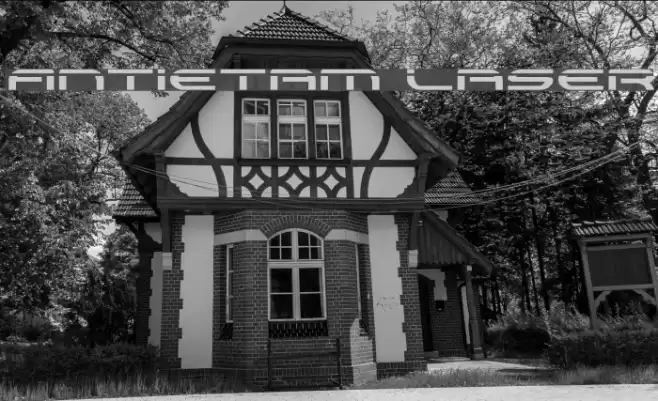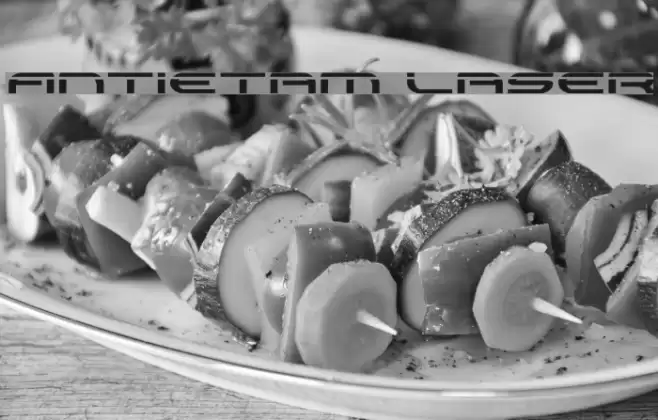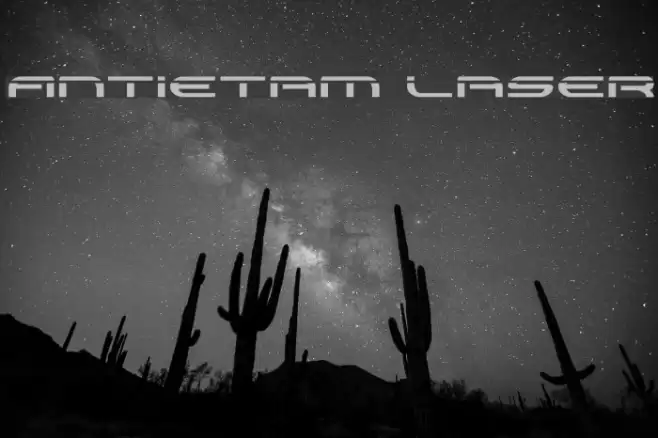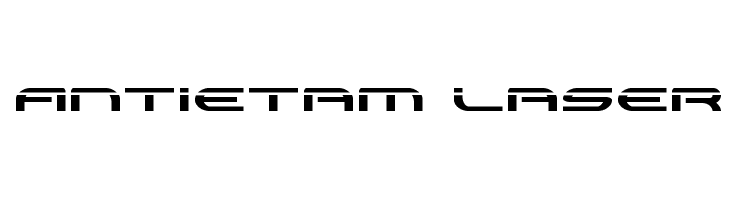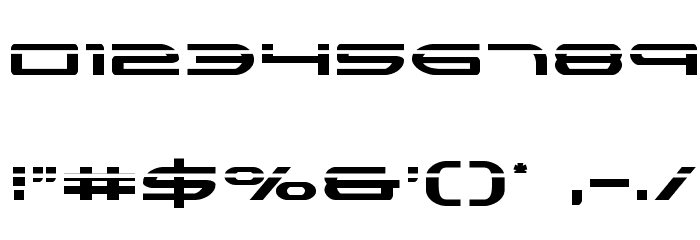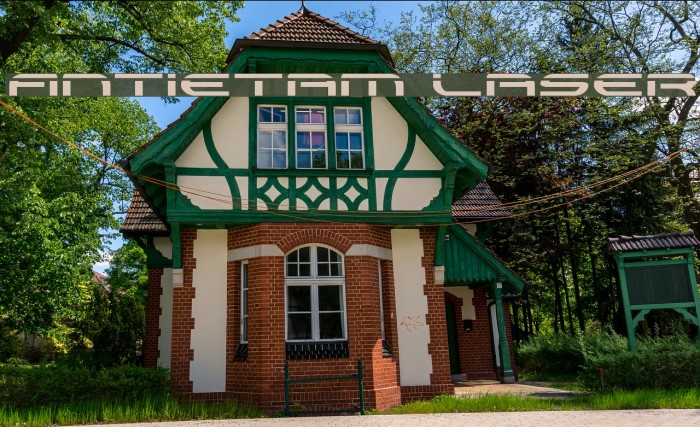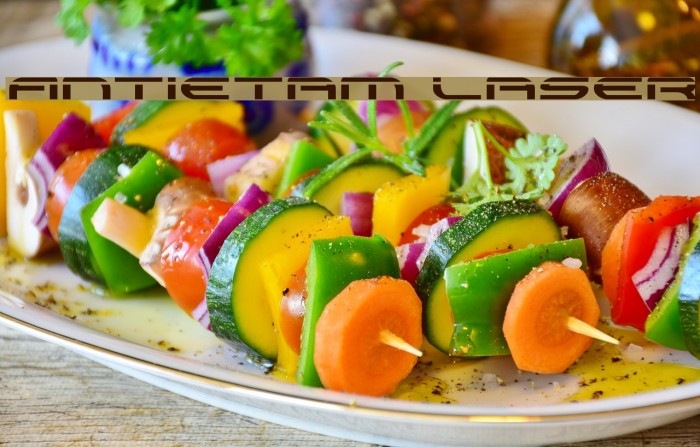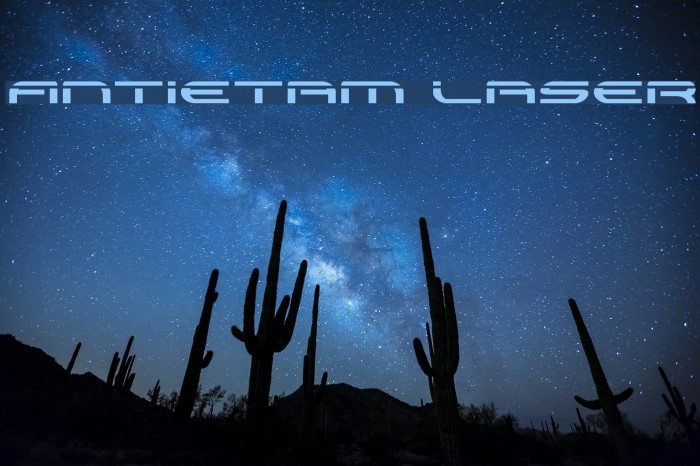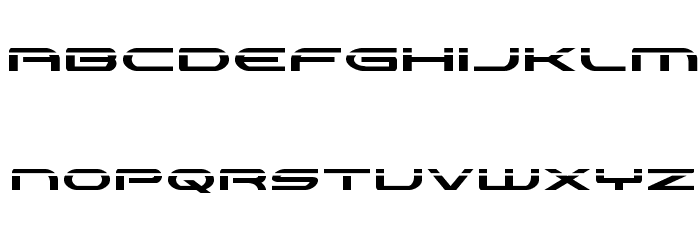
Antietam Laser Font
Antietam Laser Description
This font features a futuristic and sleek design, characterized by its geometric and angular letterforms. The characters are constructed with a combination of straight lines and sharp angles, giving it a modern and technological appearance. The uppercase and lowercase letters maintain a consistent style, with a uniform height and width that enhances readability. The numerals and special characters are designed to match the overall aesthetic, ensuring a cohesive look across all text. This font is ideal for projects that require a contemporary and cutting-edge feel.
A futuristic, geometric font with angular letterforms and a sleek, modern design from Uncategorized fonts.
- Proposed Projects: Ideal for technology branding, sci-fi themed designs, video game interfaces, and modern advertising.